The title is the most important part of almost every design. Whether it’s a poster, flyer, banner, or even a website header, the title is what attracts the audience’s attention and keep them hooked.
When it comes to designing titles, sometimes you have to get creative and make unique text designs that stand out from the crowd. And this is where Photoshop text effects can be used to go above and beyond with your designs.
Photoshop text effects allow you to completely transform your ordinary text into incredible designs without an effort. They are quite popular among YouTubers and Twitch users for designing channel cover images as well.
We handpicked a collection of the best Photoshop text effects you can use to design all kinds of titles and headings. There are both premium and free text effects in the collection. Have a look.
EPIC – Cinematic Photoshop Text Effects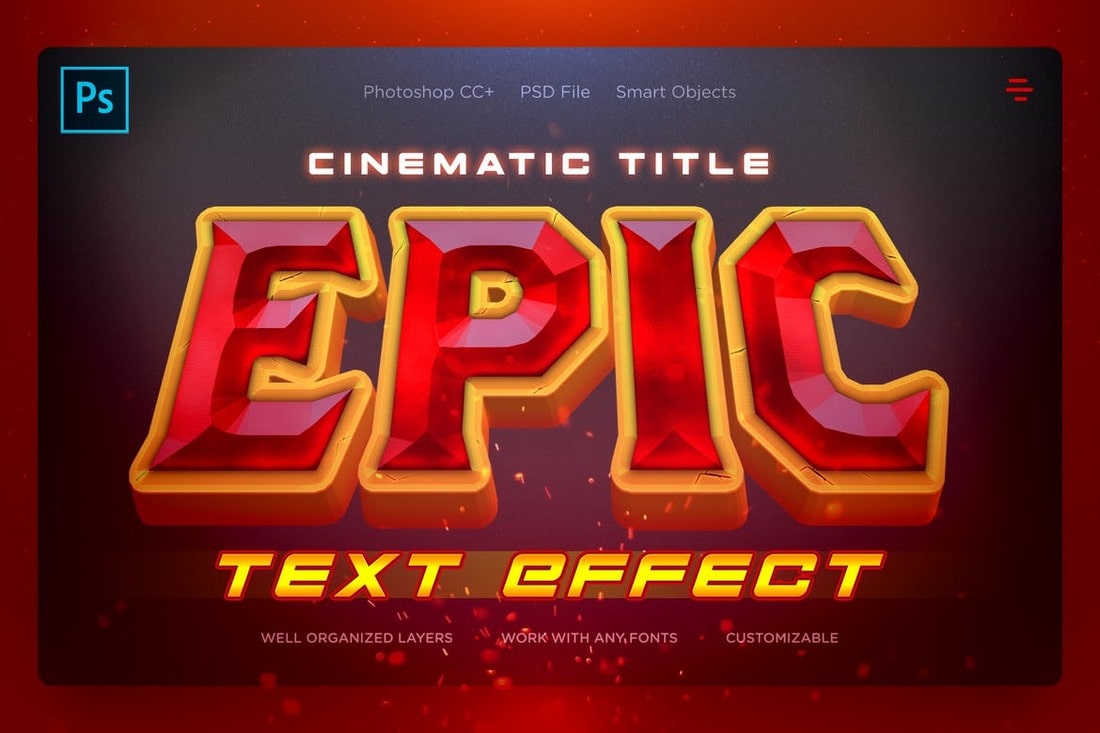
Making your headings and titles look more epic will be much easier when using this Photoshop text effect. This effect will make your text titles look like something that’s carved out of ruby stone. And it looks incredible. The text effect is available as a PSD file that you can easily customize to your preference.
Vintage Comics Photoshop Text Effects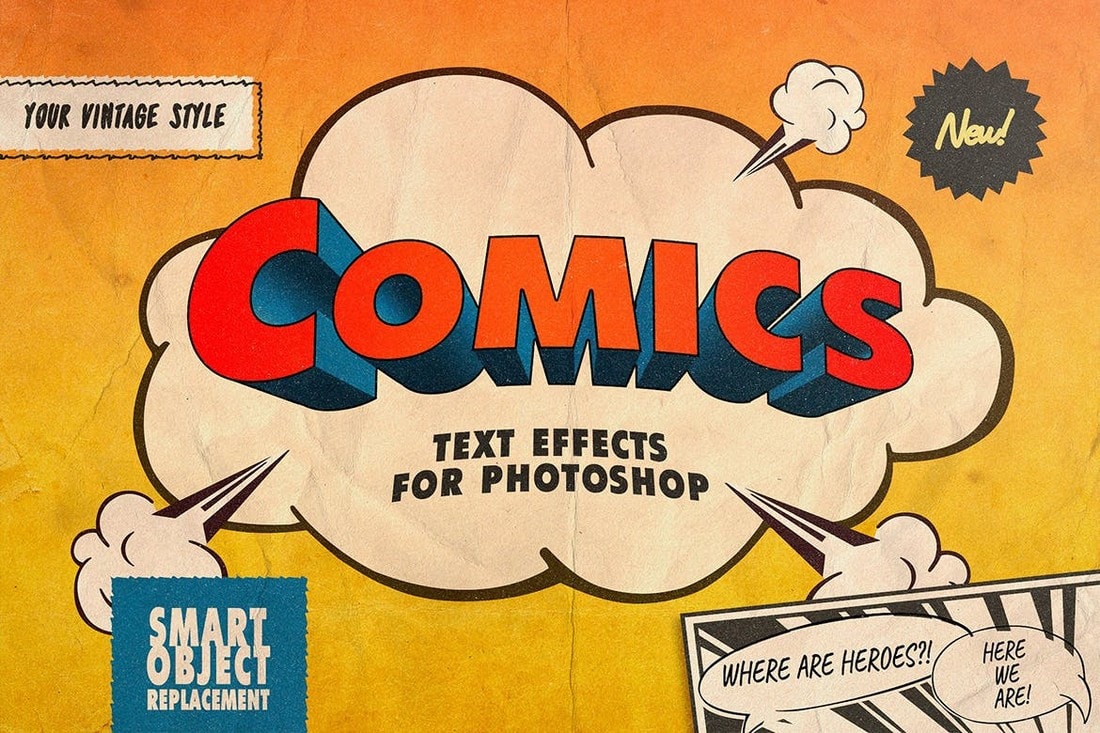
This Photoshop text effect allows you to give a vintage comic book look and feel to your titles and headings. It features a very realistic design and it comes fully layered for easily editing the PSD file. There are 10 different comic book-inspired text effects in this bundle to choose from.
Mad Metal - Photoshop Text Effects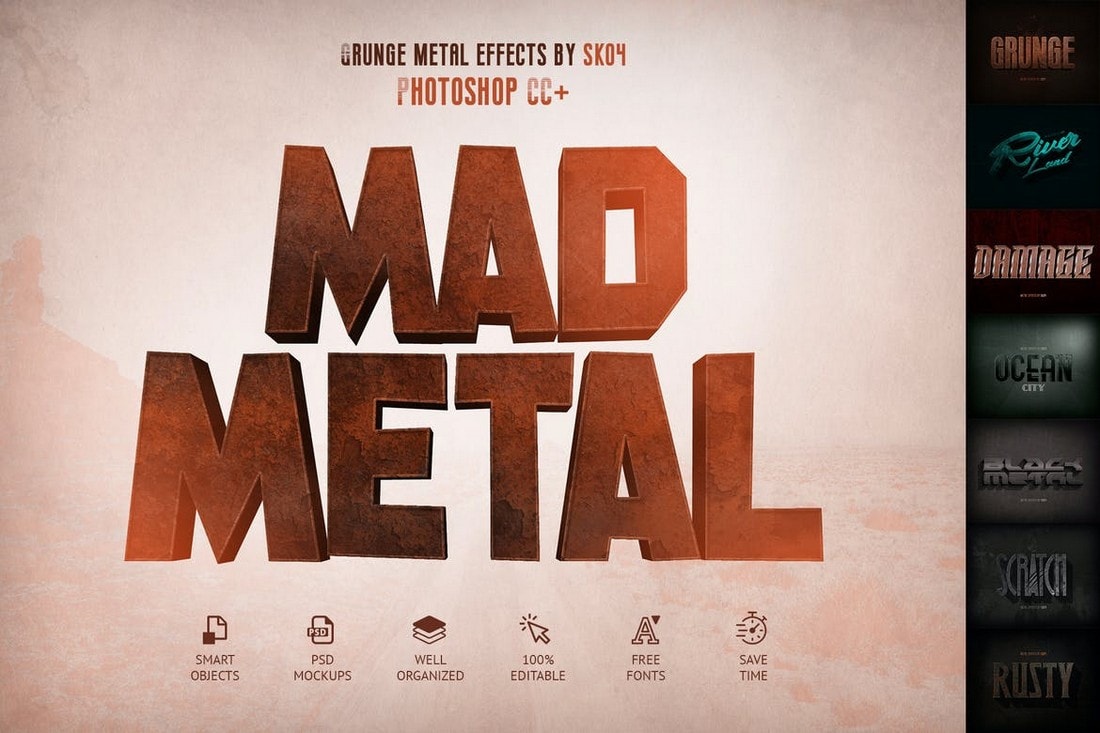
Give your text a rad Mad Max-style 3D look using this creative Photoshop text effect. It’s perfect for crafting text for music posters, album covers, as well as for YouTube covers. The effect is available in 9 different styles and you can easily edit each one using Photoshop CC or higher.
80’s Retro Text Effects for Photoshop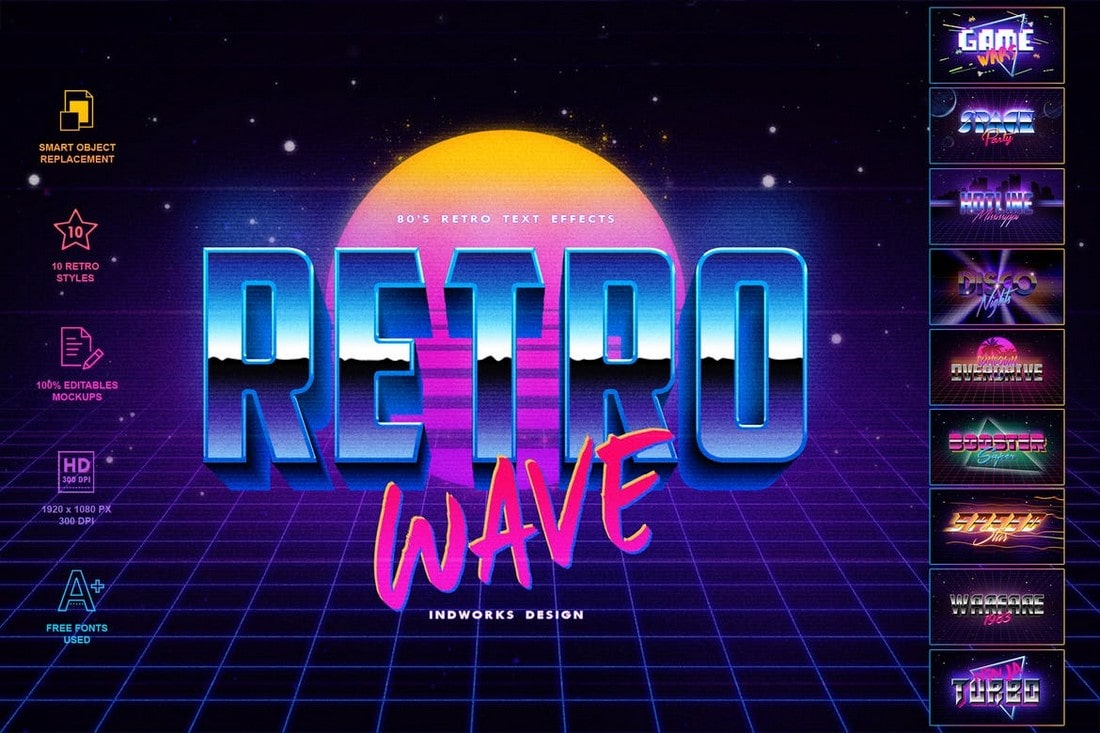
If you’re a fan of neon retro designs, this text effect is the perfect choice for you. It allows you to give an 80’s retro look and feel to your titles. The text effect comes in 10 different styles. Each as fully editable and high-resolution PSD files. They are also compatible with Photoshop CS2 and higher.
Foil Balloon – Photoshop Text Effects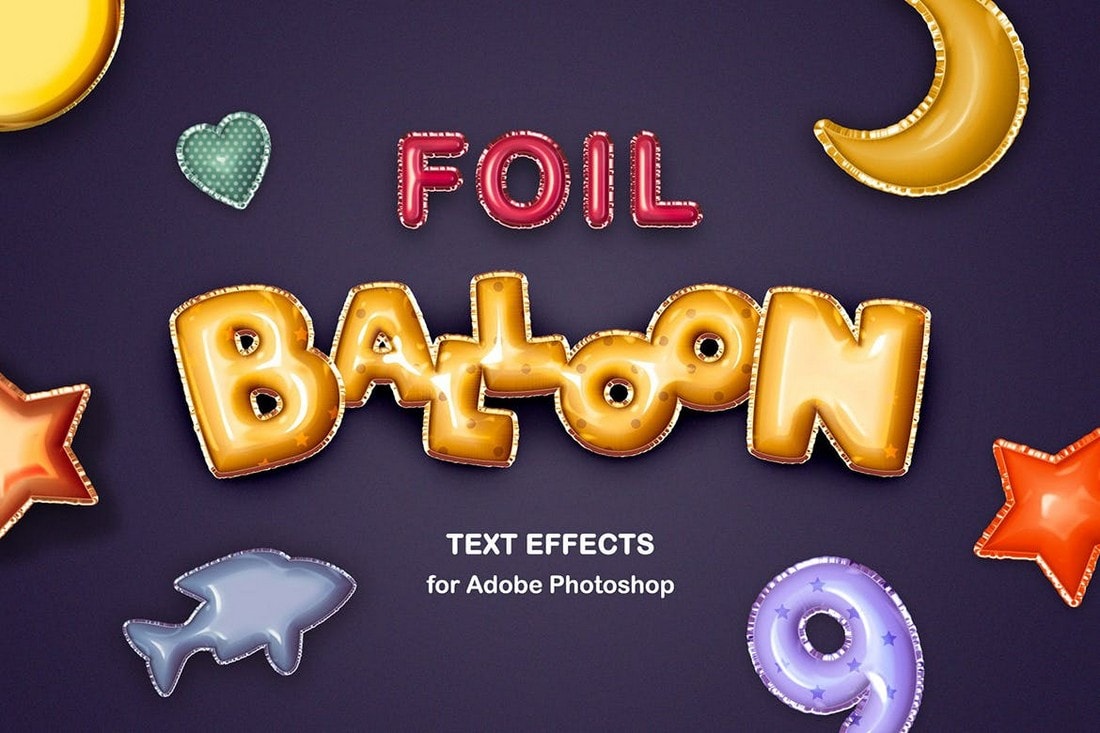
Design party-themed titles for posters, greeting cards, and flyers using this creative Photoshop text effect. This pack comes with 4 different foil balloon text styles. As an added bonus, it also includes 9 patterns in 3 different colors for customizing the design of the foils. It’s perfect for kids-themed title designs as well.
Underwater – Free Photoshop Text Effect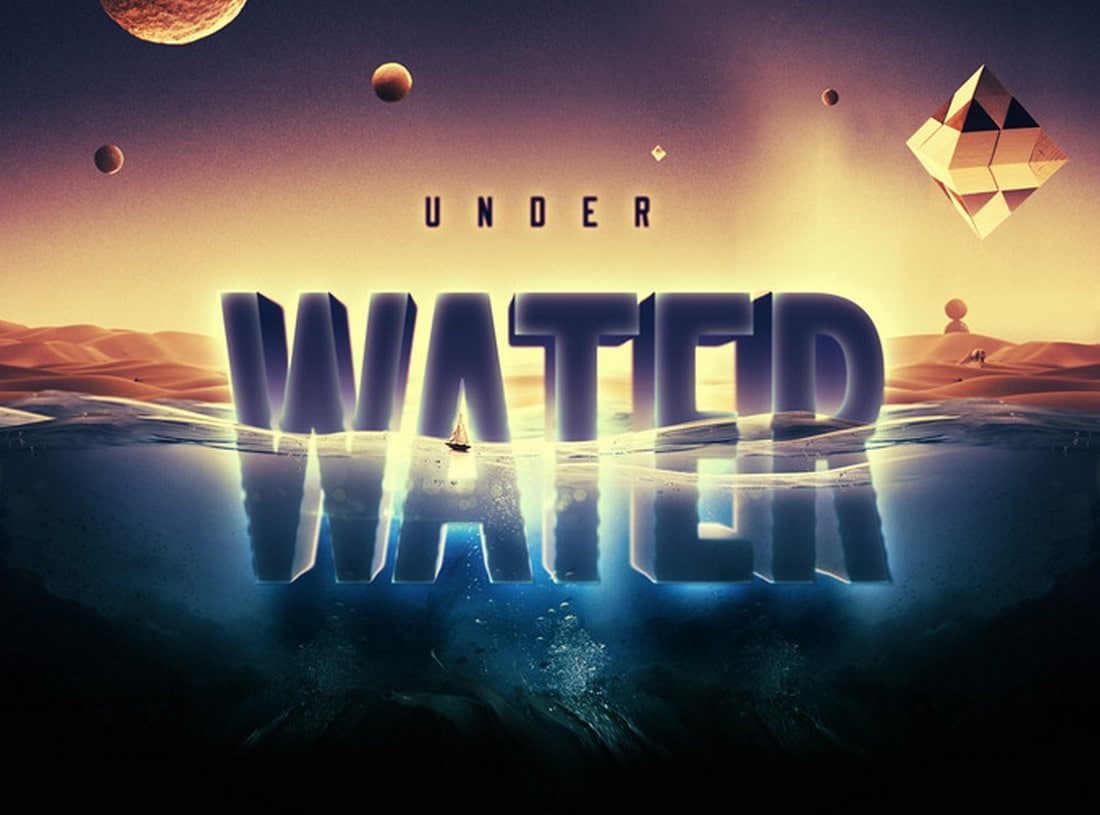
This is a free Photoshop text effect that allows you to create a unique underwater-themed text effect. It comes as an editable PSD file that’s compatible with Photoshop CS6 and higher. You can use it for free with your personal projects.
Retro Layered Text Effect PSD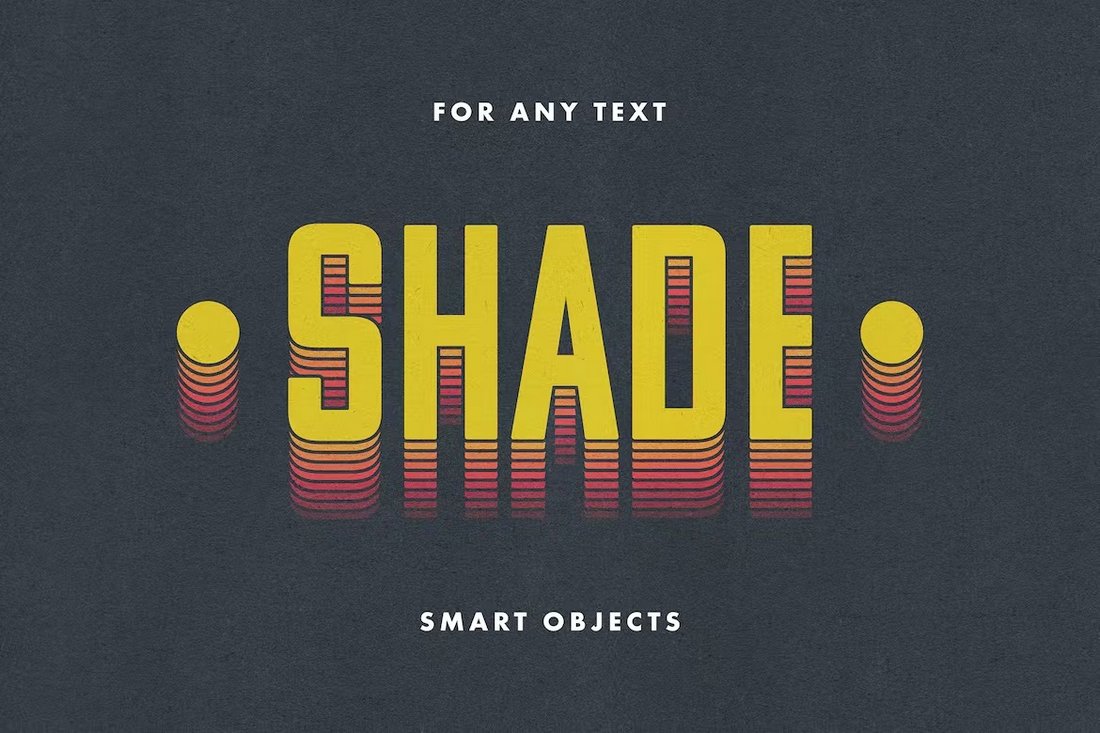
You can use this Photoshop text effect to create groovy retro-style typography designs. It’s especially great for designing titles for CD covers, music albums, and even posters. The template is quite easy to customize as well.
Sci-Fi Dimension Photoshop Text Effect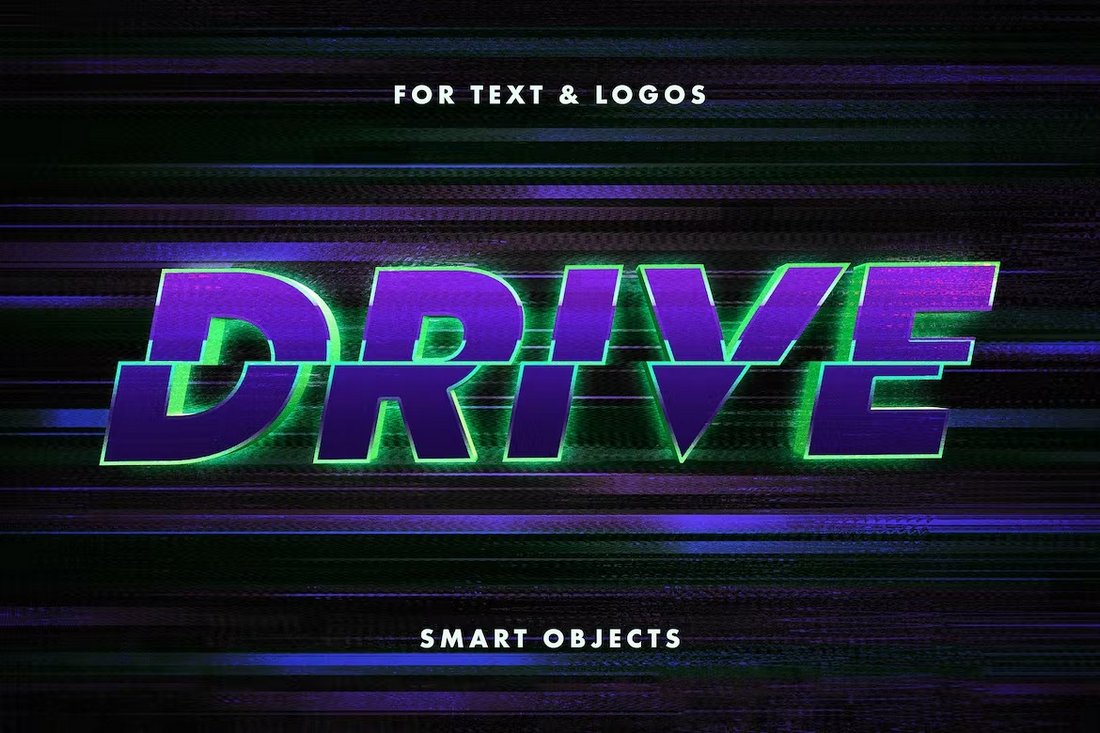
Show speed and momentum through your typography using this Photoshop text effect. This PSD template comes with a fully customizable effect and it includes smart layers as well.
Broken Text Effect for Photoshop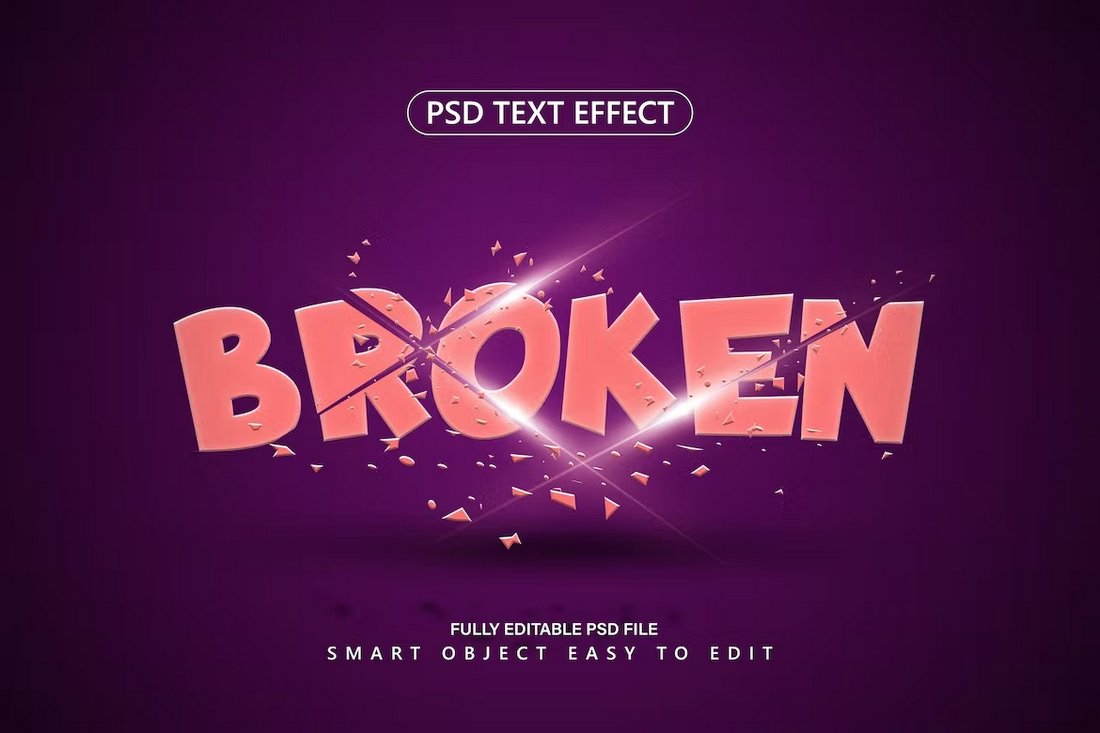
This Photoshop text effect allows you to create cool broken text effects for your title and heading designs. The effect is easy to customize, thanks to smart objects. You can even change the font if you like.
Lava Photoshop Text Effect PSD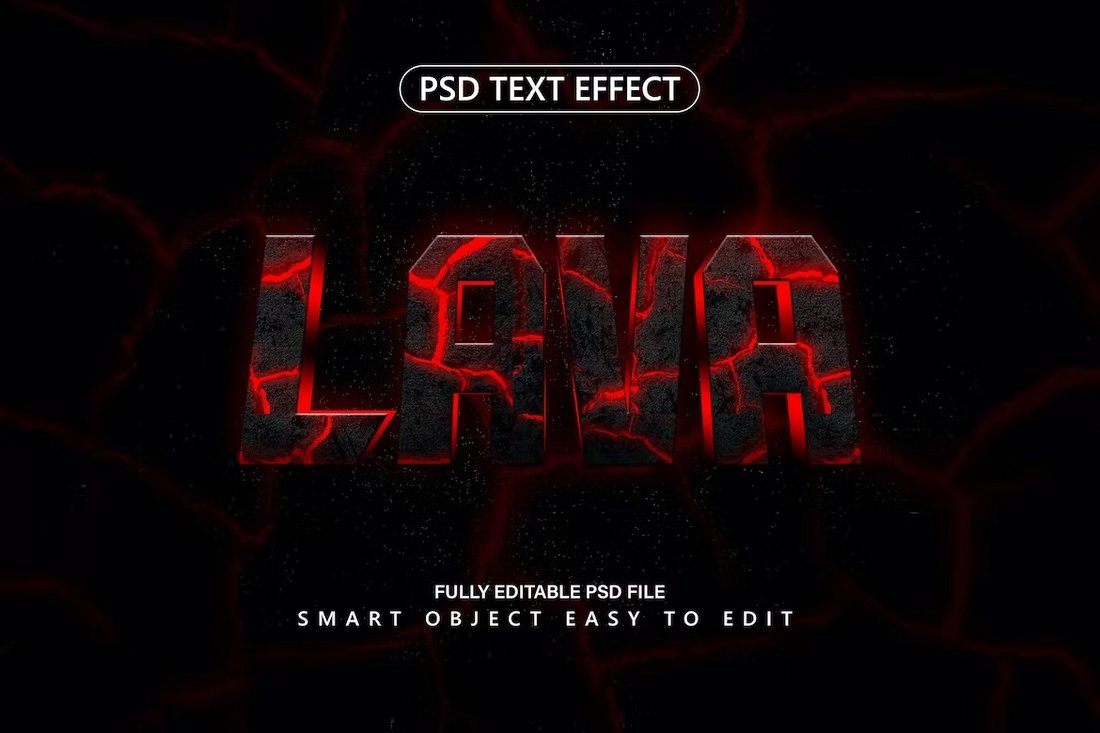
Fill your titles full of lava with this cool text effect. It’s a perfect Photoshop text effect for making a cool volcanic effect for titles and headings. The PSD template includes smart object layers.
Free Metal Chrome Text Effect PSD
This free Photoshop text effect allows you to create a cool metal chrome-style effect for your typography designs. The template lets you apply the effect with just one click.
Dark Magic Game Text Effect PSD
Give a fun and cute look to your title designs with this video game-themed text effect. This text effect is perfect for making title designs for cute kid’s games and various other graphic designs.